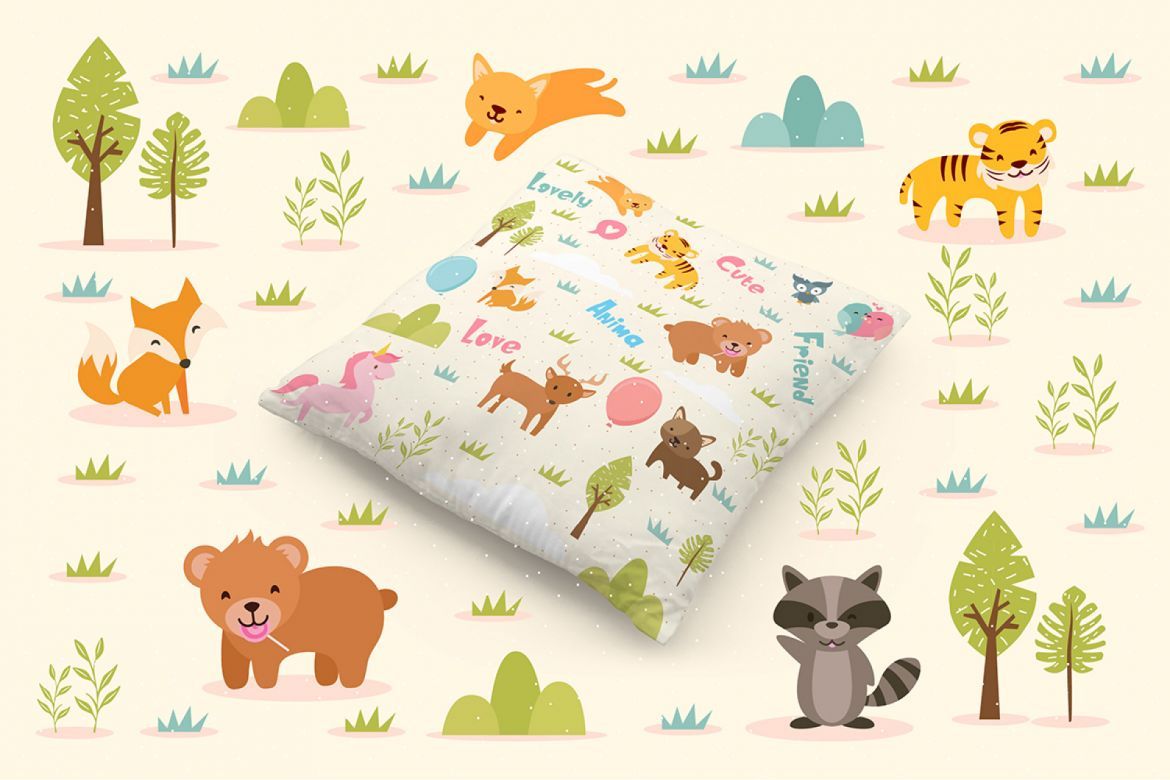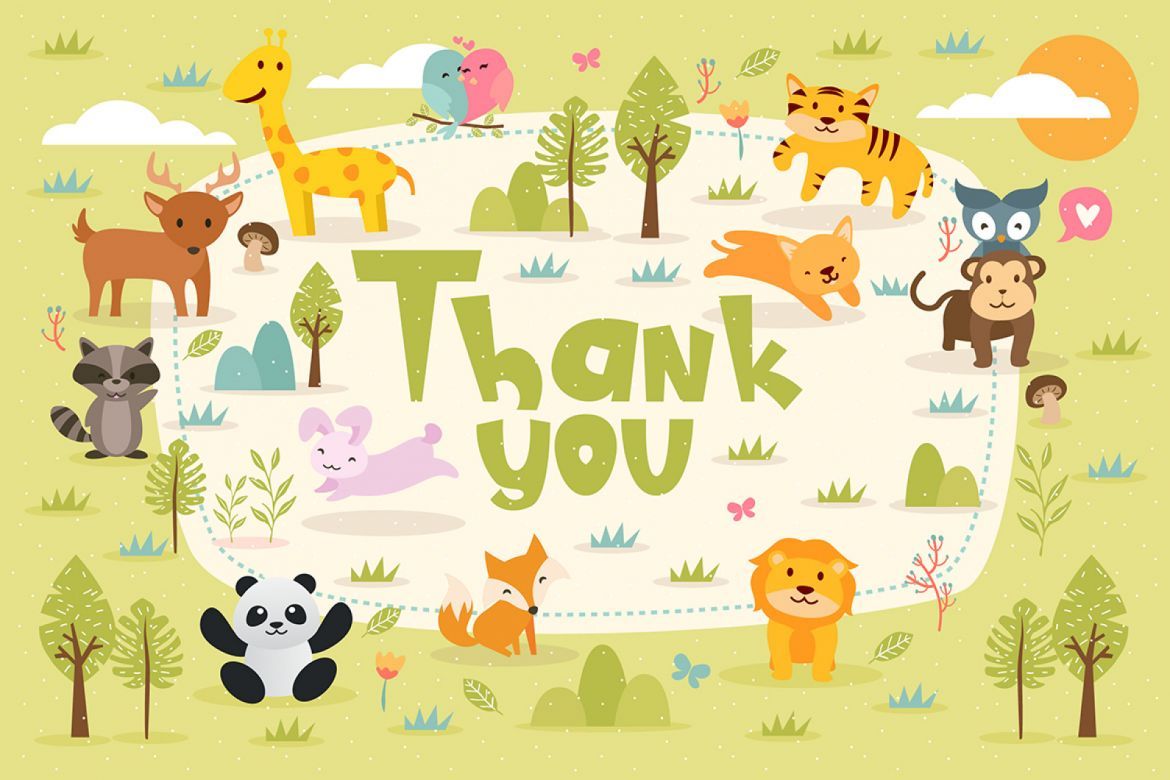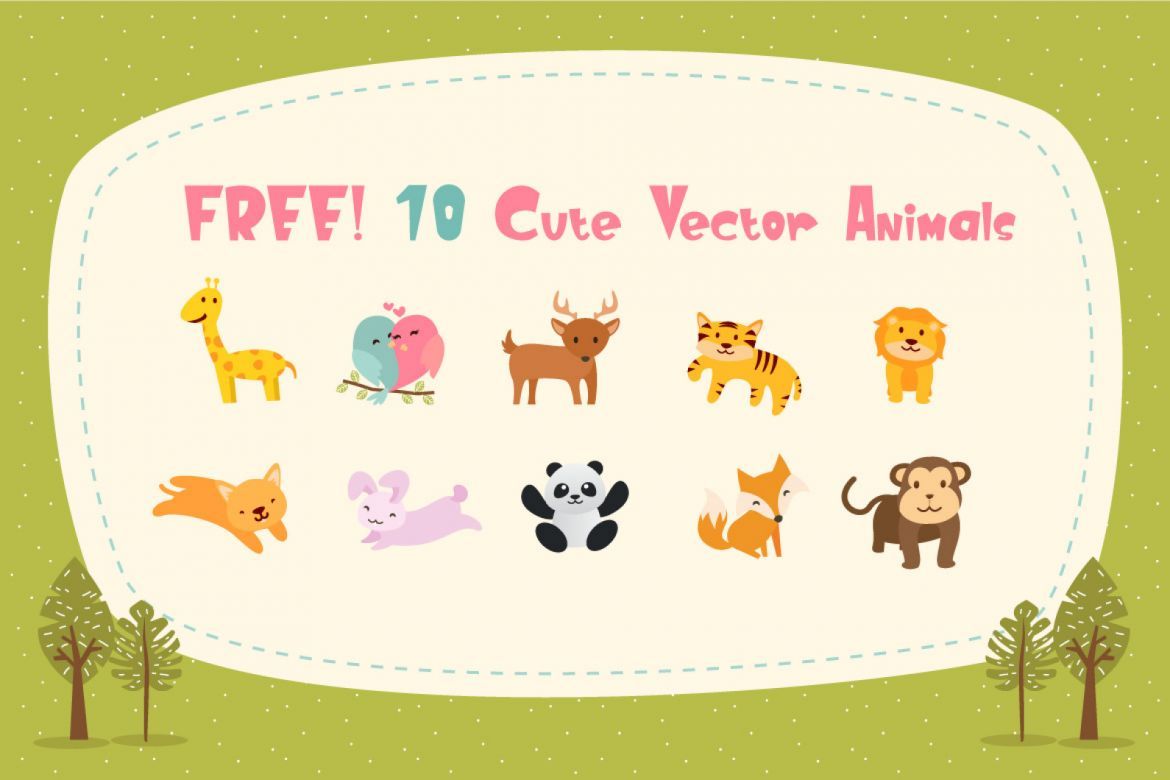
Anima - Fun Children Typeface
Are you looking for a bold and fun font for children? We can help! Try to download our Anima font. The font is suitable to use for casual purpose especially children related occasion :) Oh yeah we forgot to mention that we give you 10 cute animals vector objects for free too in Adobe Illustrator format!